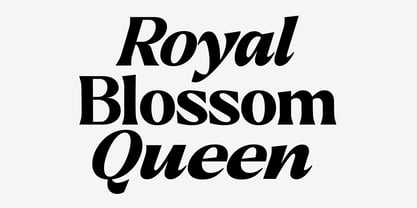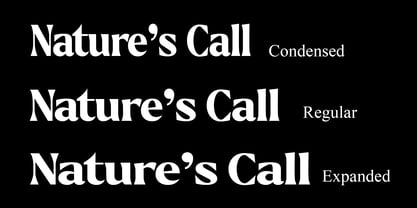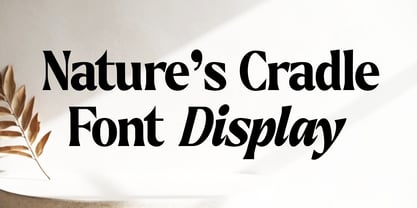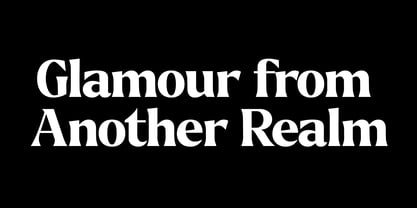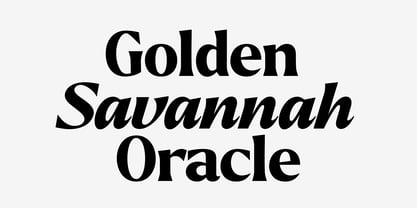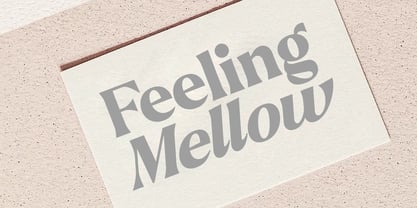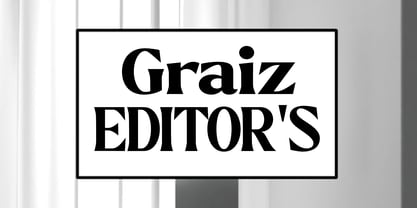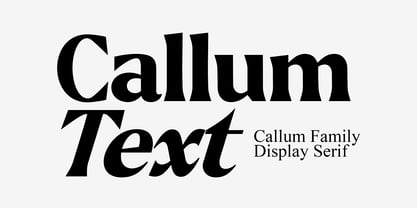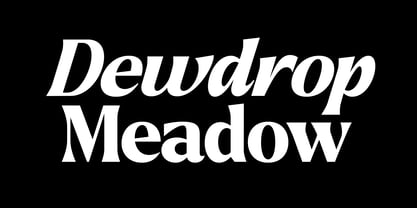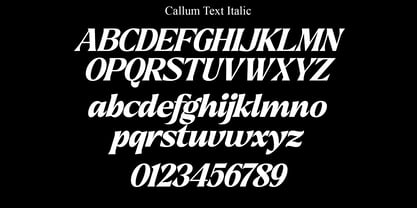
Callum Text
The Callum Text Font Family was designed by Nur Hayati and published by Positive Type. Callum Text contains 9 styles and family package options. More about this family
Introducing Callum Text: A Serif Typeface for a Modern Aesthetic
Experience timeless elegance with Callum Text, a carefully crafted serif typeface that blends classic charm with contemporary style. Its high-contrast strokes and graceful curves create a visual symphony that captivates the eye and enhances any design. Whether you’re creating a sophisticated editorial layout, a striking brand identity, or an engaging website, Callum Text’s flexibility and refined beauty will make your work stand out. Immerse yourself in the world of Callum Text, where each character is meticulously designed to exude strength and refinement. From its carefully sculpted serifs to its perfectly balanced proportions, this typeface is a testament to the timeless power of classic typography. Its true italics, with their unique personality, add a touch of dynamic movement and visual interest, allowing you to create designs that are both captivating and easy to read.
Key Features:
Callum Text allows for fluid design in nine styles, supporting all major Latin languages. The true italics enhance the aesthetic, bringing energy, and making it suitable for modern applications.
The natural curves, ridges and slanted stems become more pronounced as the font thickness increases. While regular thickness has lower contrast and optical correction to create a warm, soft look.
Perfect for:
Editorial Design: Magazines, newspapers, books and Callum Text are highly readable and elegant, perfect for long-form text. Branding & Logos: Create a sophisticated and memorable brand identity with the timeless appeal of Callum Text. Web Design: Callum Text’s clean lines and high contrast ensure optimal readability on screens of all sizes. Packaging & Print: Enhance your product packaging and printed materials with a touch of classy luxury. Invitations & Stationery: Make a lasting impression with Callum Text’s elegant presence on invitations, greeting cards and other stationery.